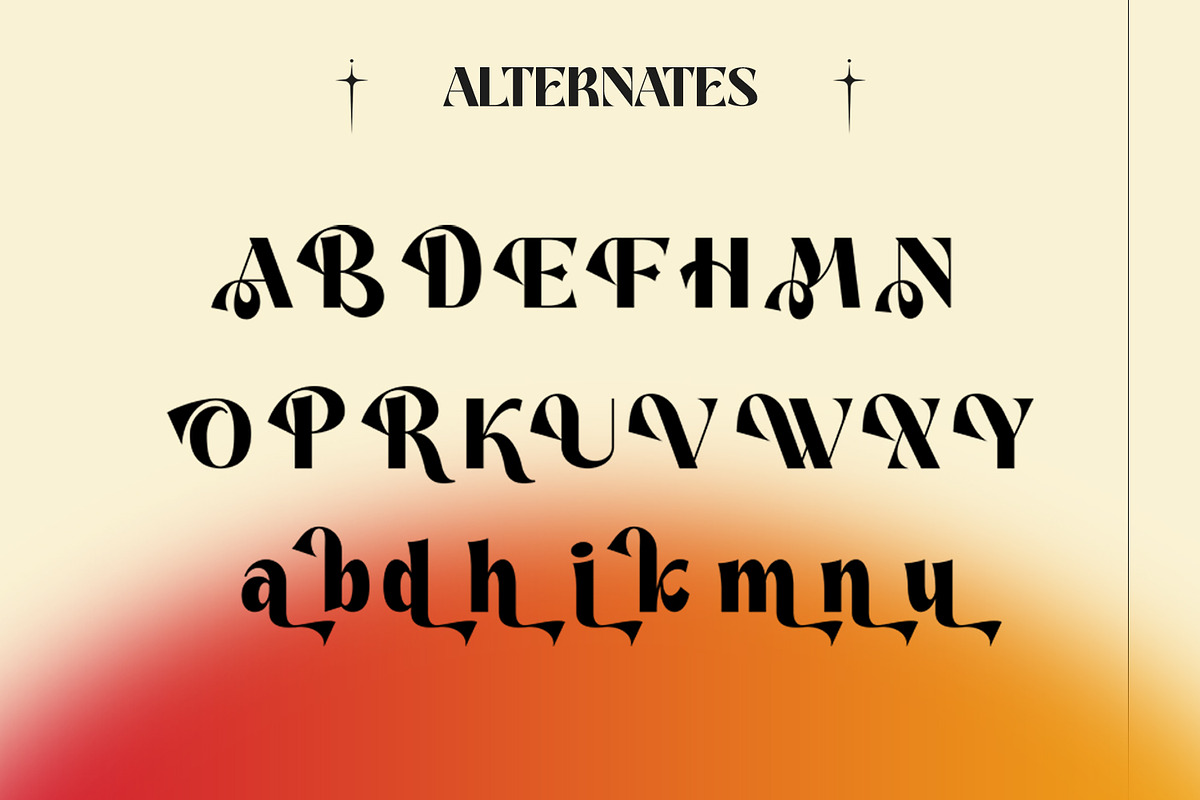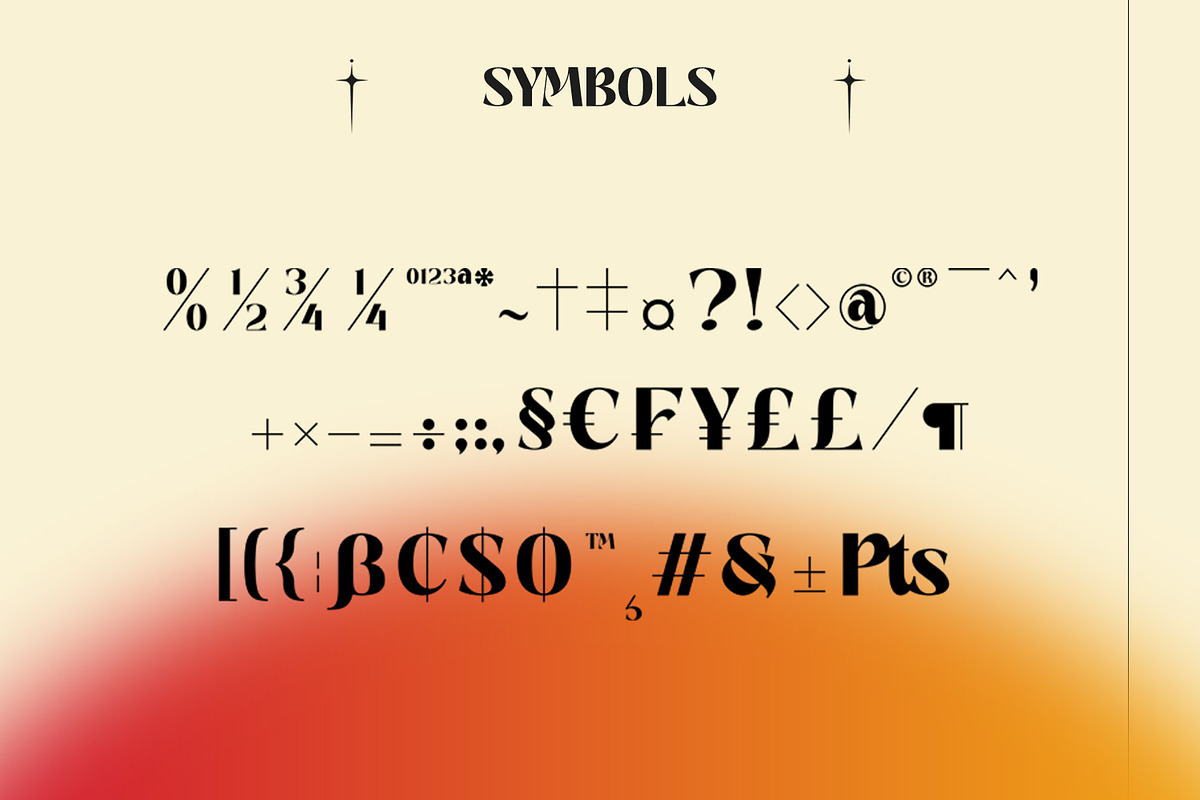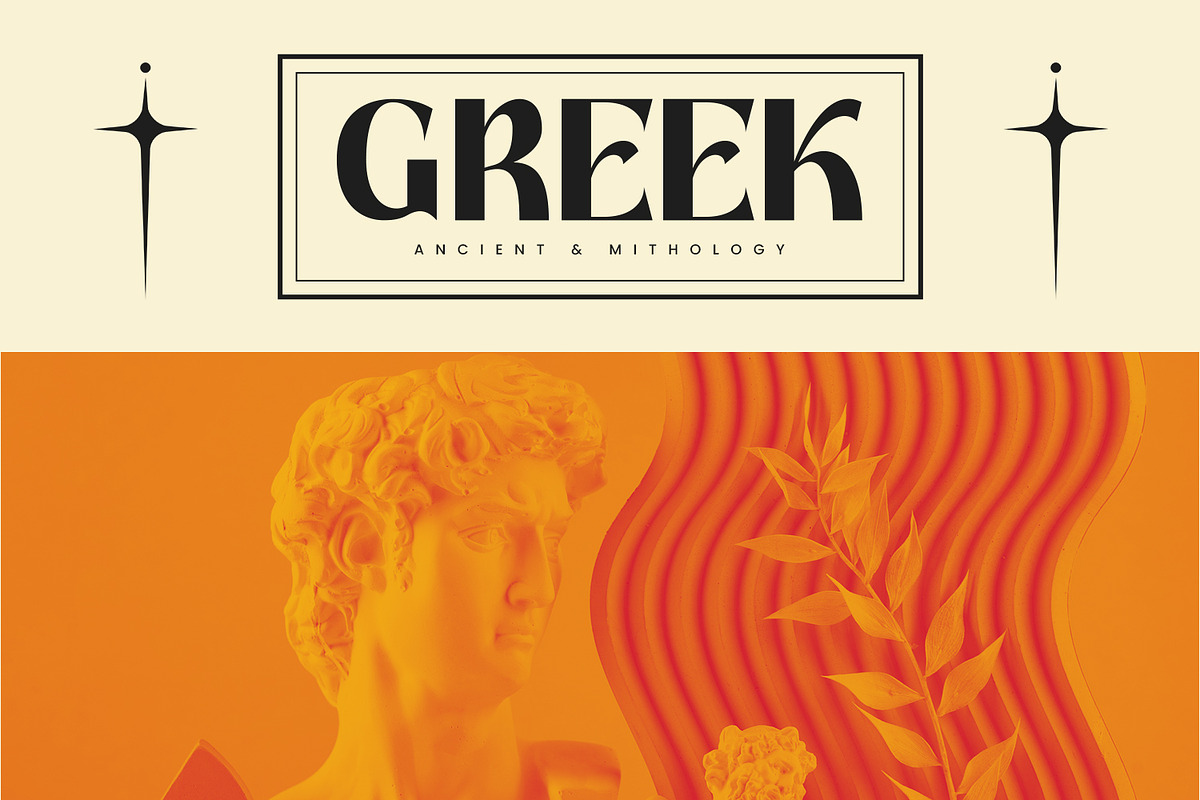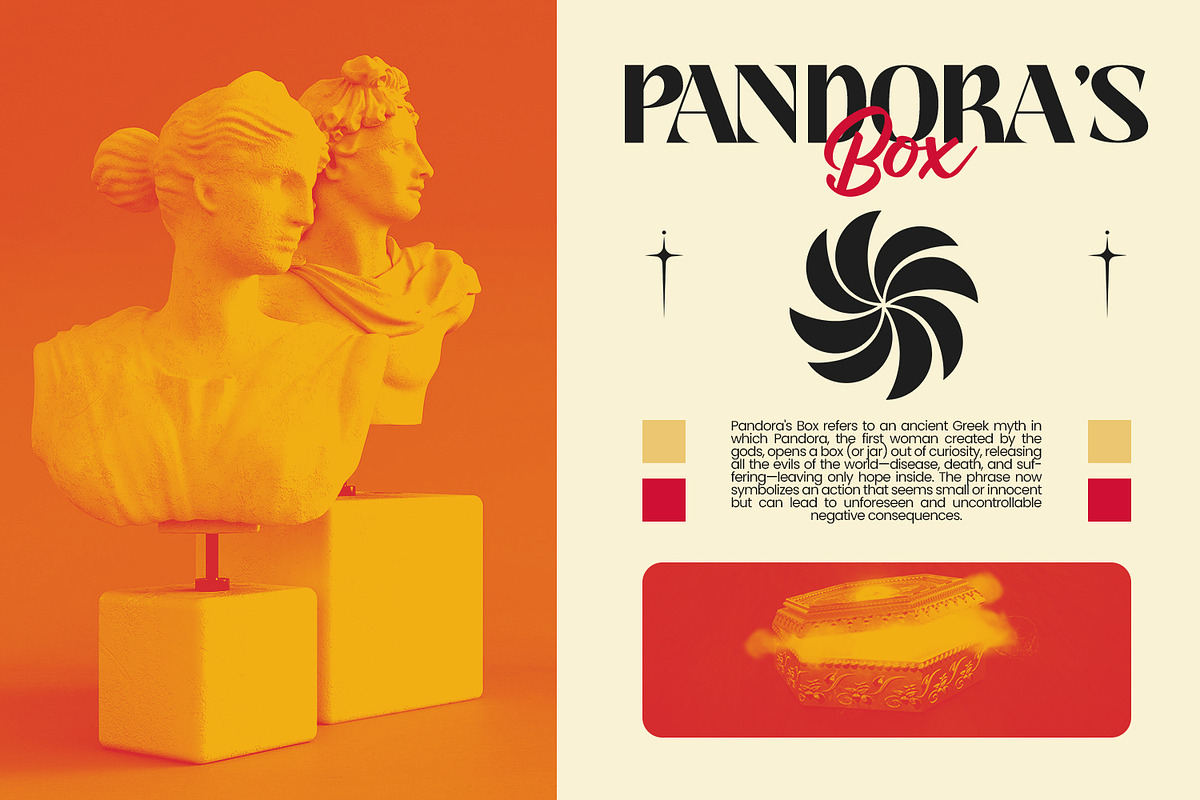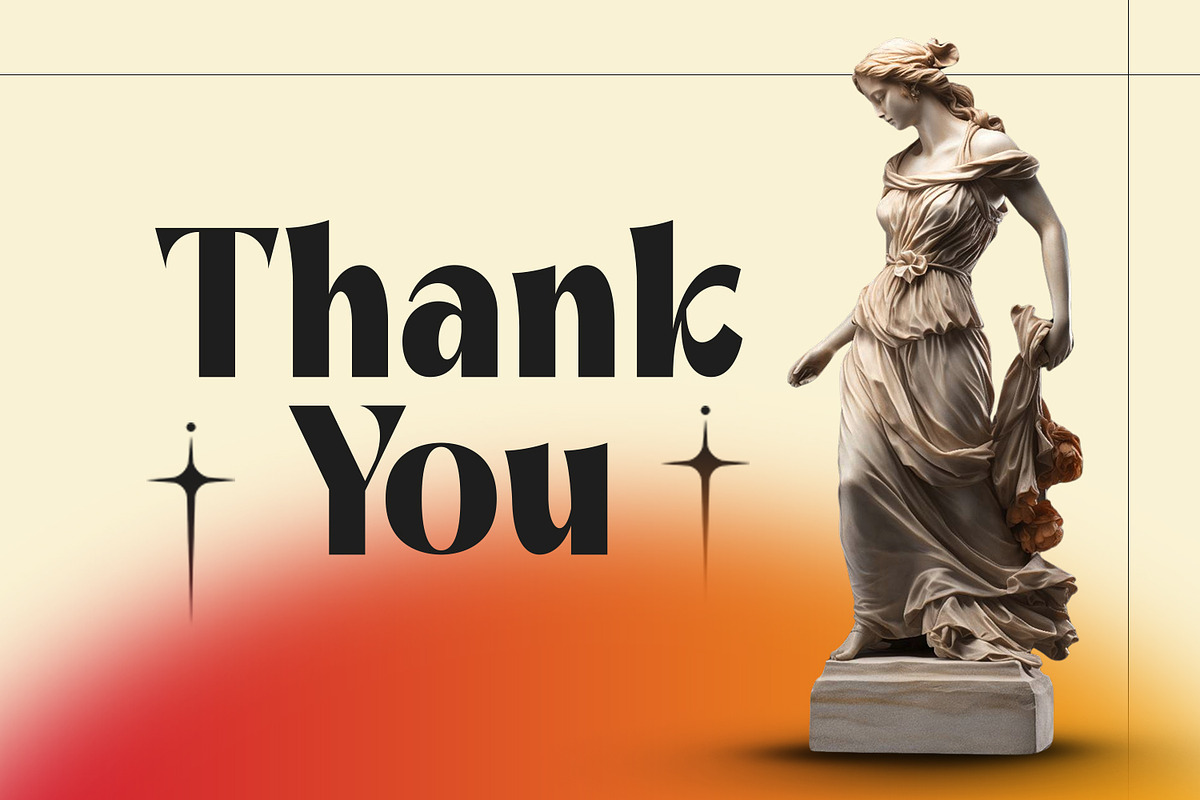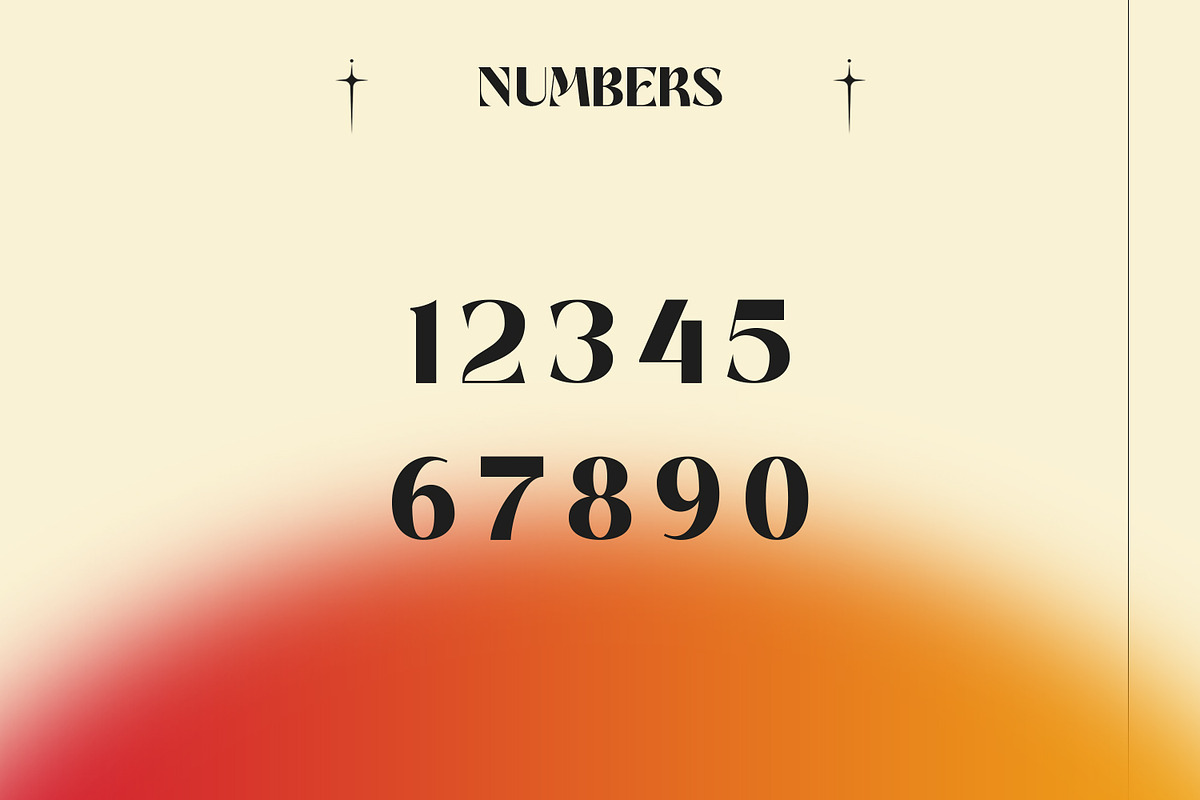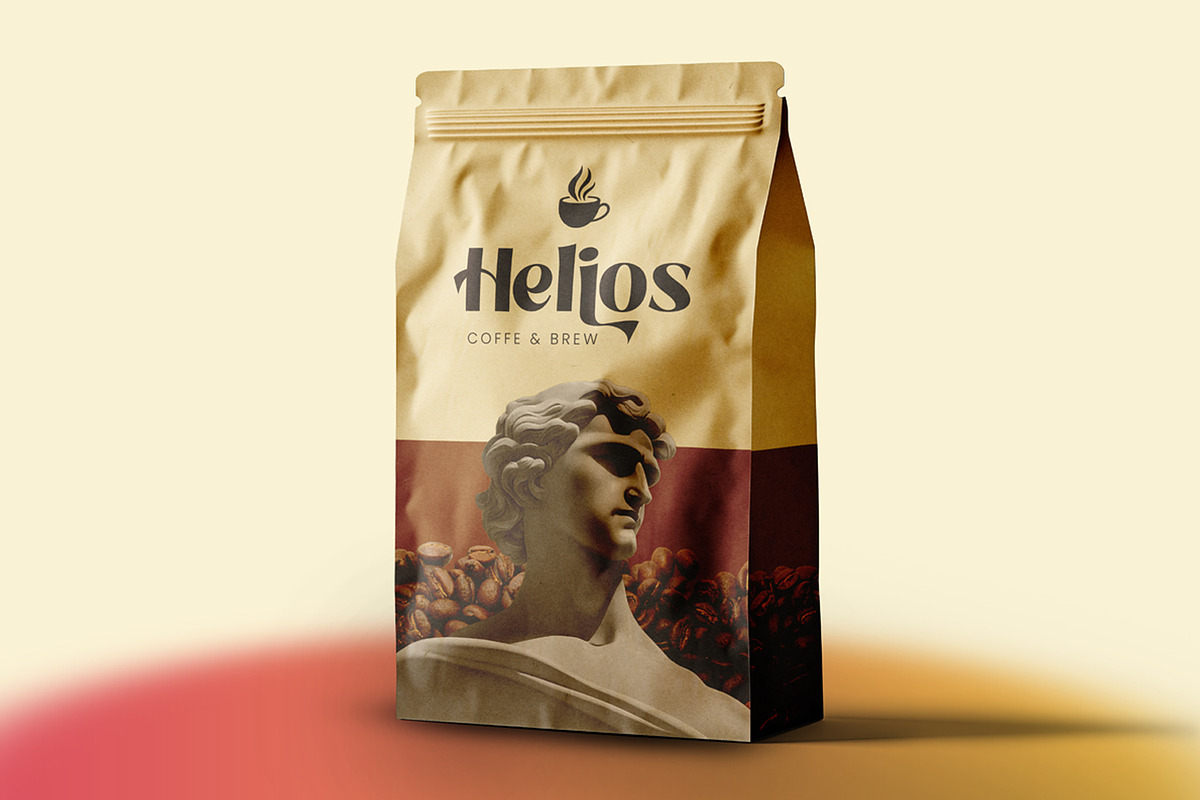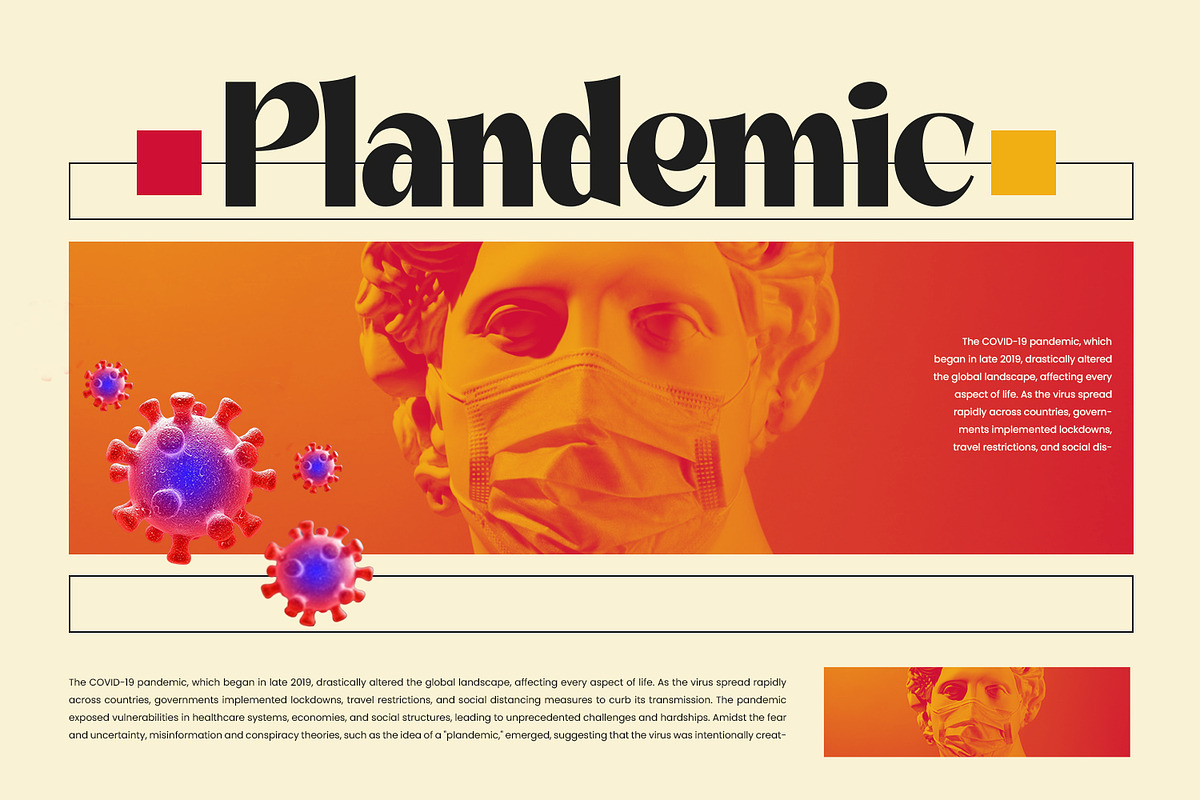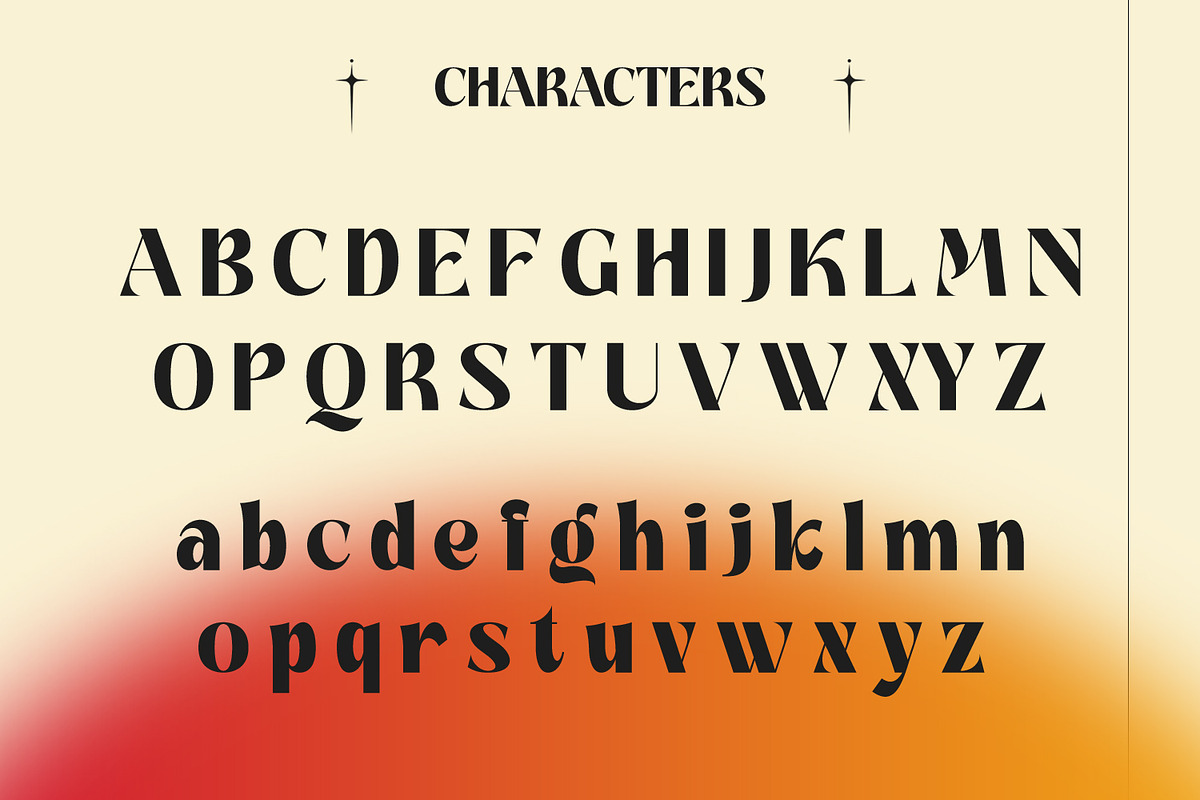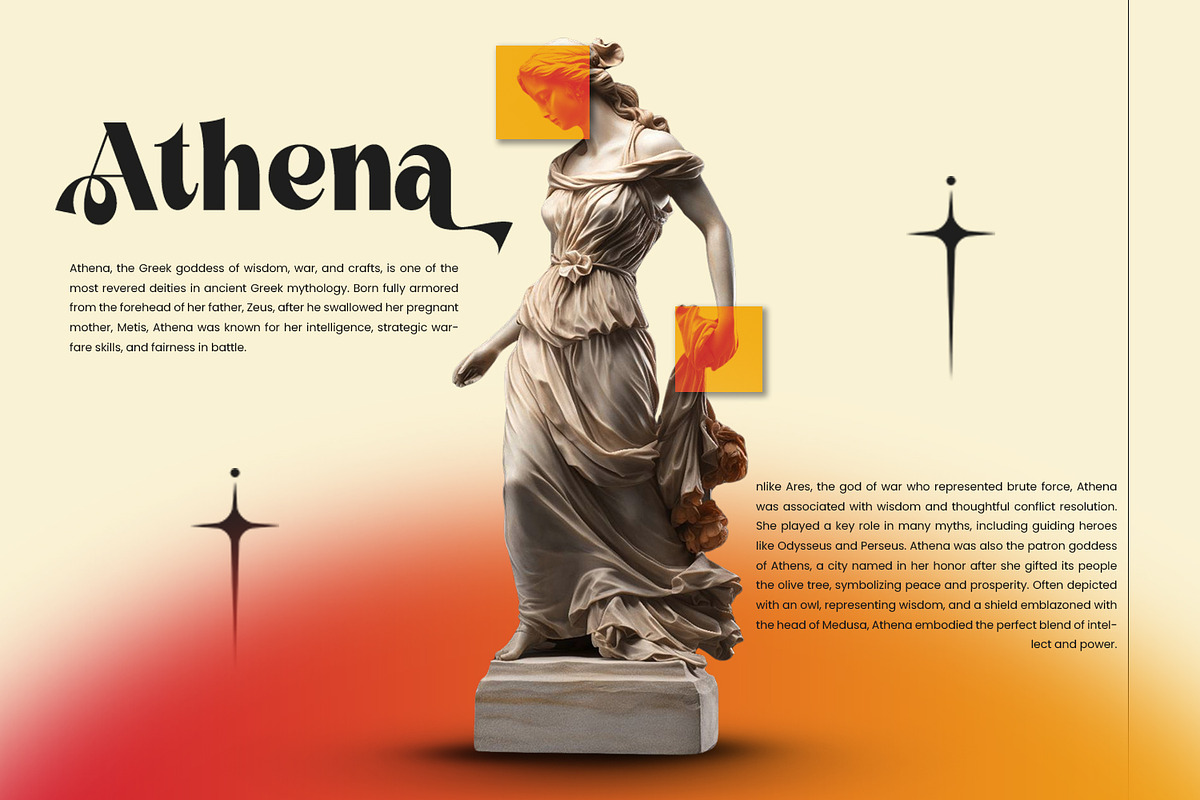
Renalga - Display Sans Serif Font
Renalga - Display Sans Serif Font, from Favowrite Studios, is a premium Font, perfect for any project that requires a distinctive, and premium feel.
- Ligature, Alternate & amp; Multilingu